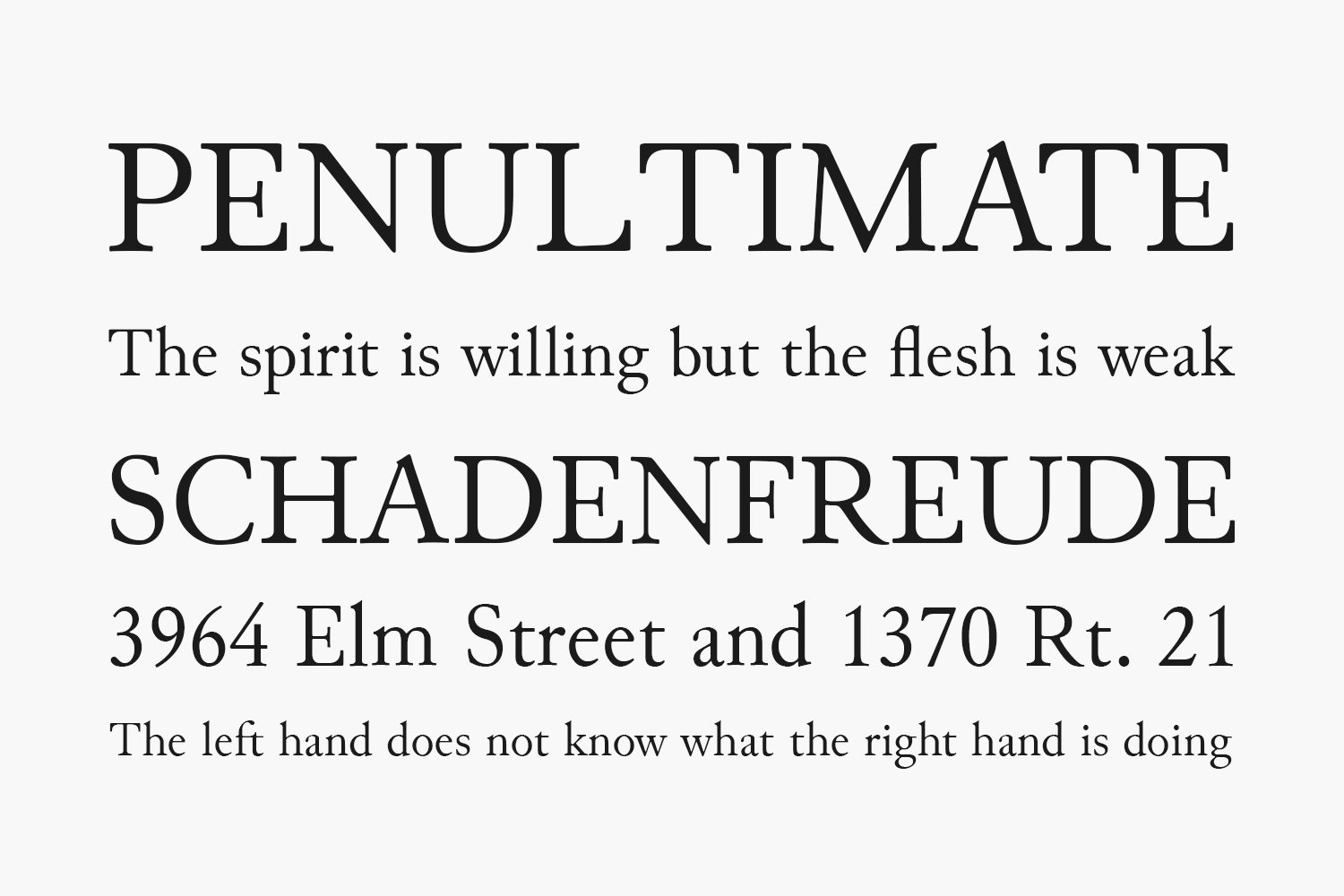
Junicode Free Font Family is designed to meet the needs of medieval scholars; however, it has a large enough character set to be useful to the general user. It comes in Regular, Italic, Bold and Bold Italic faces. The Regular face has the fullest character set and is richest in OpenType features.
Junicode implements most of the recommendation of the Medieval Unicode Font Initiative (version 3.0). Look for special MUFI char- acters (those not in the Unicode standard) in the Private Use Area (U+E000 and above). Download the complete recommendation at http://www.mufi.info/.
Designed by Peter S. Baker